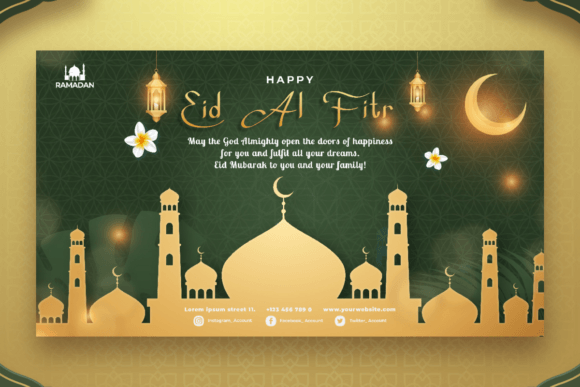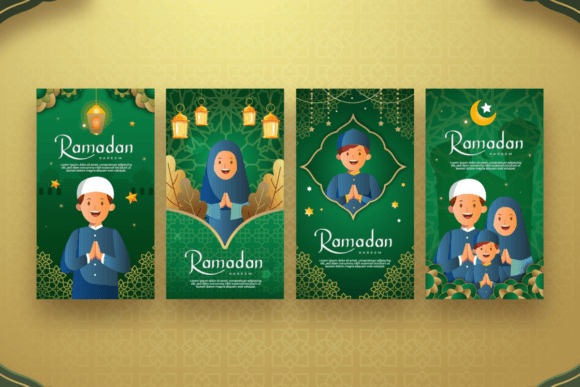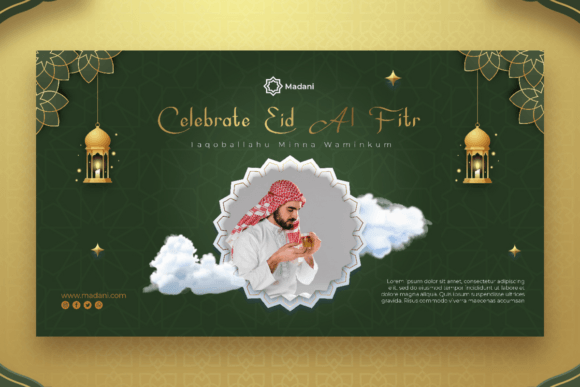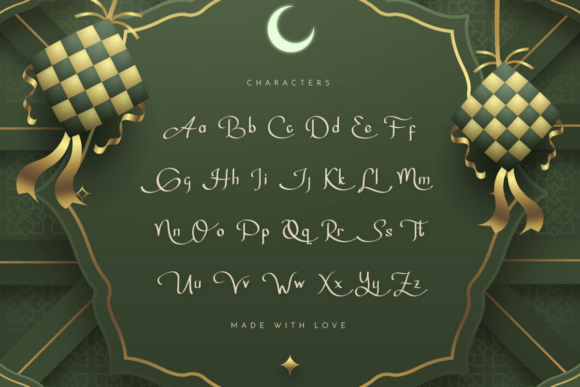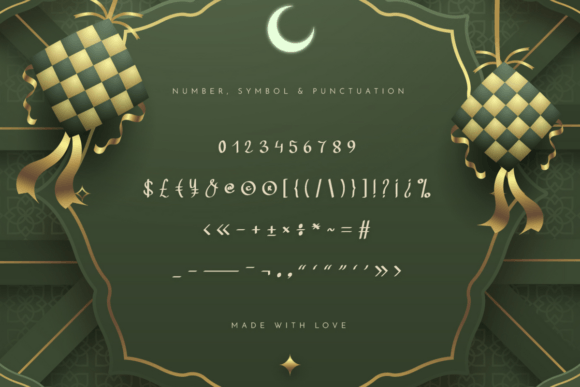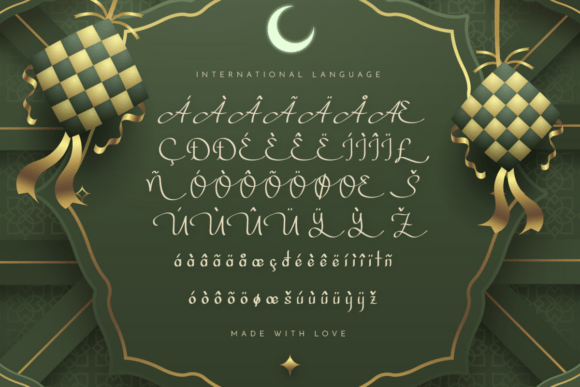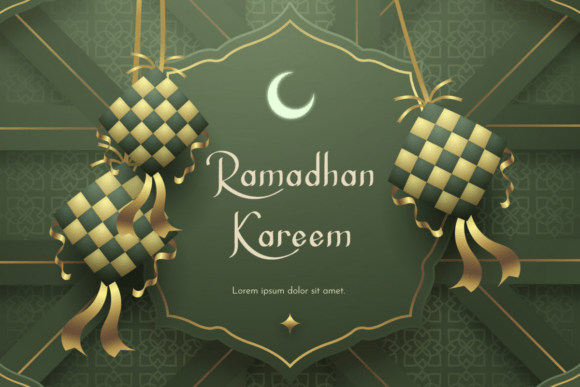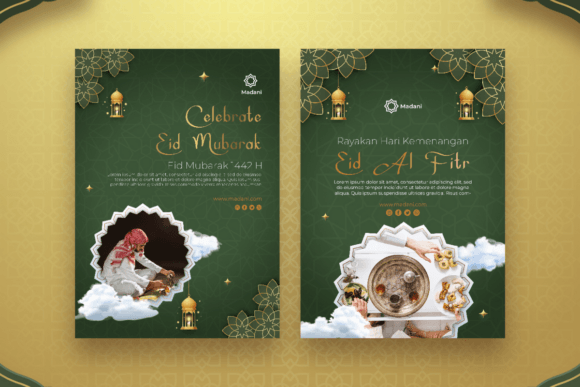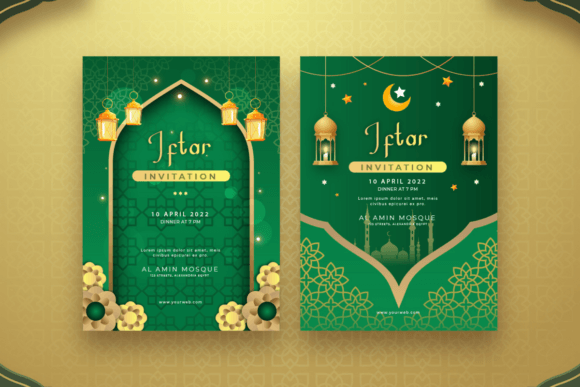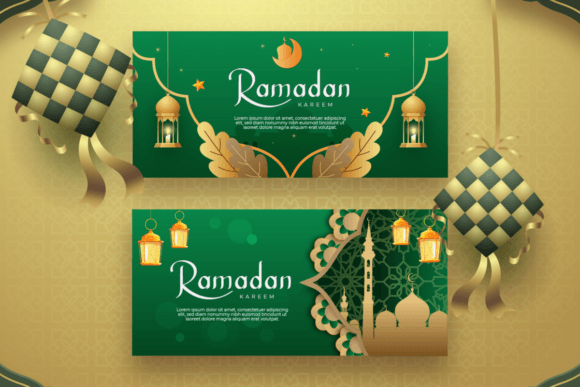
Sayyidus Syuhur Font
About Sayyidus Syuhur Font
**Sayyidus Syuhur Calligraphy** is not just a font; it’s an artistic expression crafted to enhance the essence of Ramadhan, known as Sayyidus Syuhur (The Lord of the Moons). This calligraphy font is designed to imbue your designs with the spirit of Ramadhan, drawing inspiration from Arabic-style writing with sharp lines and curves at the end of each letter, creating an aesthetic and visually appealing look.
Crafted with precision, the calligraphy style of **Sayyidus Syuhur** brings an authentic touch to your designs. The sharp lines and curves not only add an aesthetic quality but also reflect the beauty of Arabic calligraphy, enhancing the overall visual impact of your creations.
This font is particularly well-suited for invitation card designs, greeting cards, and posters associated with the sacred month of Ramadhan. The name, Sayyidus Syuhur, itself signifies its connection to the Lord of the Moons, adding a spiritual and meaningful touch to your designs.
Whether you’re working on projects to commemorate Ramadhan, designing heartfelt invitation cards, or creating visually stunning posters, **Sayyidus Syuhur Calligraphy** is crafted to elevate your text with a unique and aesthetic flair.
In summary, **Sayyidus Syuhur Calligraphy** is more than a font; it’s a calligraphic representation of the spirit of Ramadhan. Perfect for invitation card designs, greeting cards, and posters associated with this sacred month, this font adds an authentic and aesthetic touch to your designs, making them more meaningful and visually captivating.